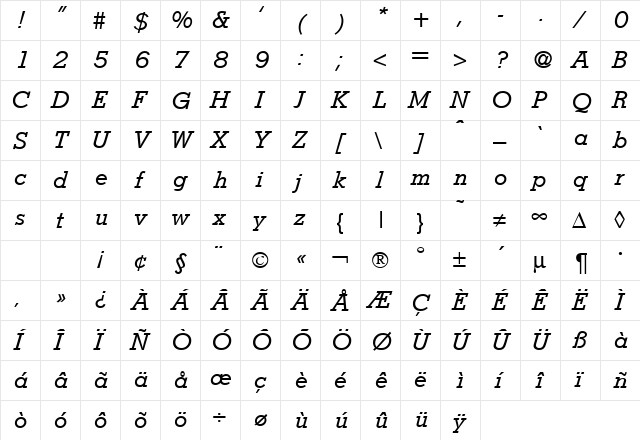
Stymie RegularItalic
Design Context for Stymie Typeface
Stymie takes a measured approach to typography — its balanced proportions and neutral character make it a reliable workhorse for both digital and print work. The slanted form adds forward momentum and visual energy.
Pro Tip: Try Stymie for annotation and caption copy alongside an upright companion — the contrast in angle creates a dynamic but ordered typographic system.